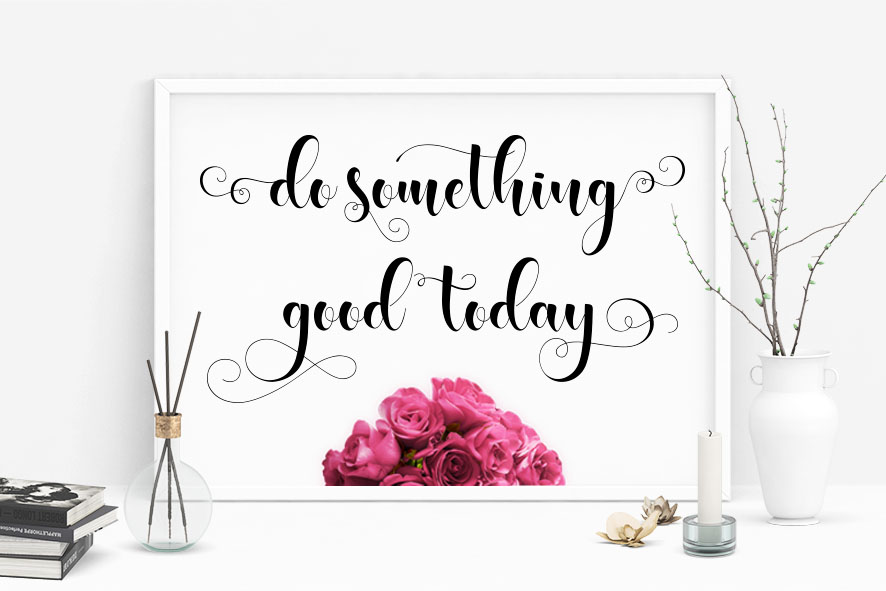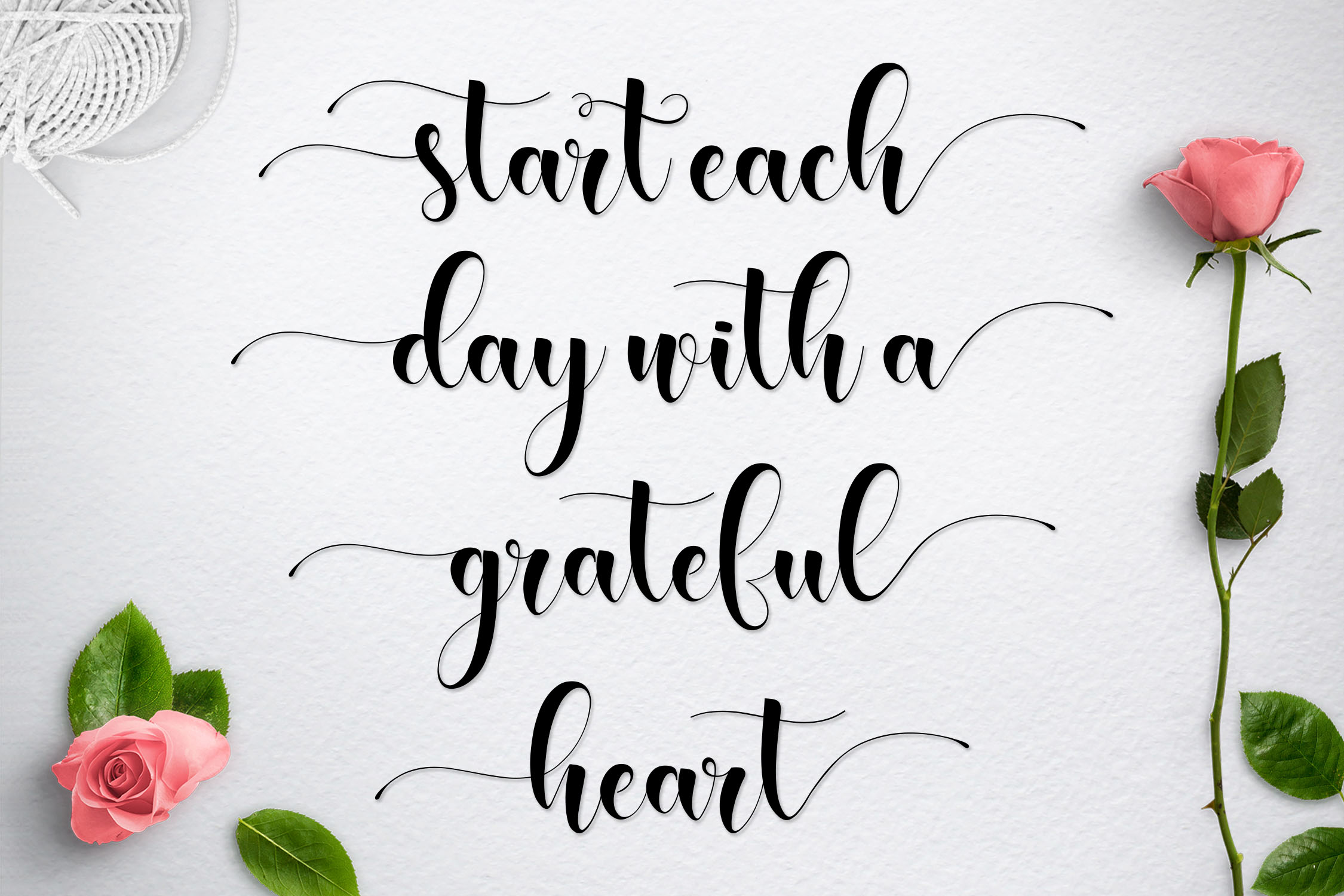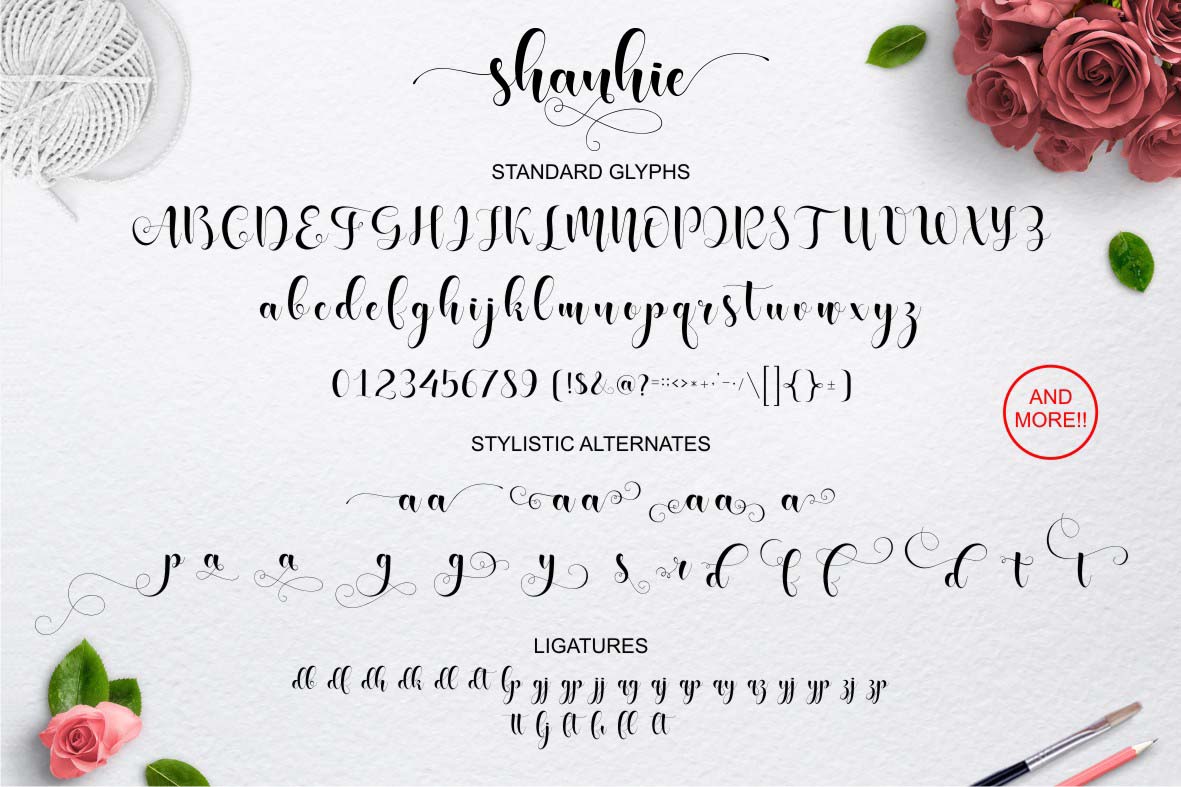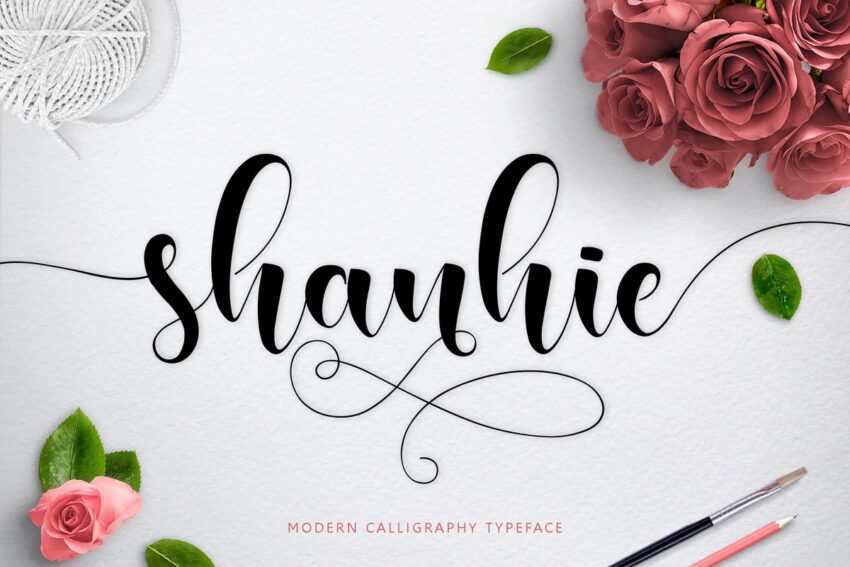
Introduction to Shanhie Font
Shanhie is a freh, modern script published by Jamalodin.
This calligraphy-style font comes packed with over 490 handmade glyphs .